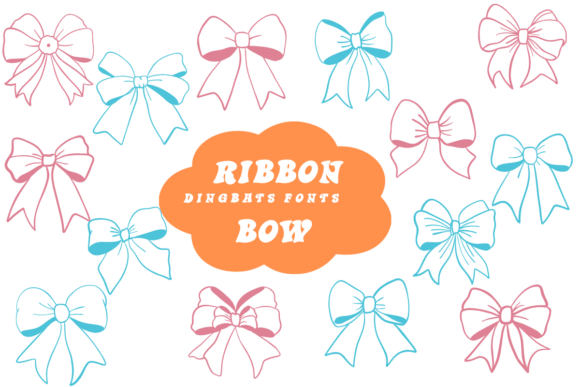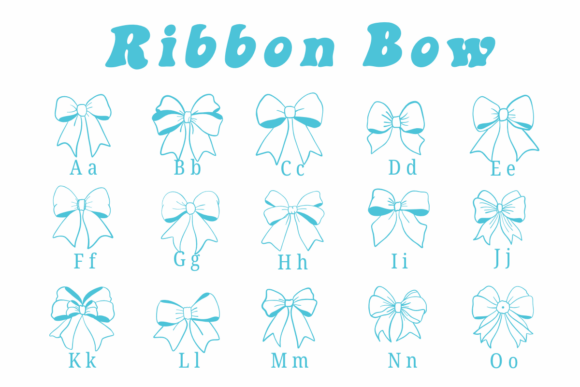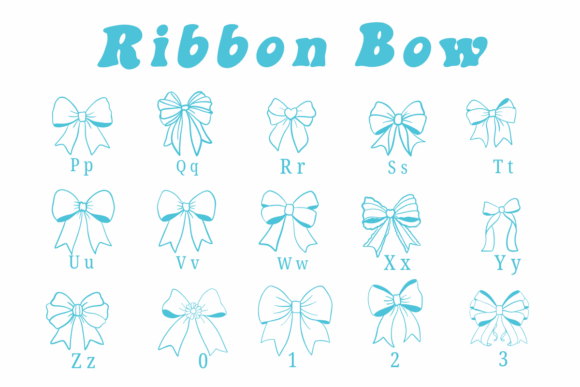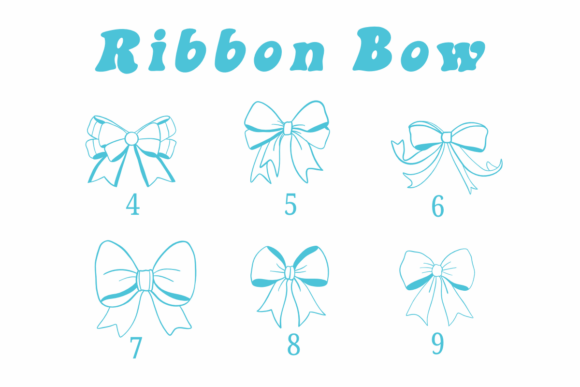
Ribbon Bow Font: A Playful Decorative Font for Holiday Crafts
About the Ribbon Bow Font
Welcome to the world of Ribbon Bow Font, a typeface that will inspire your next great project. Ribbon Bow is a delightful dingbat font featuring a collection of elegant and playful bow illustrations. From classic ties to whimsical loops, this font adds a charming touch to any design. Perfect for gift tags, greeting cards, fashion projects, kids’ prints, or crafting, these hand-drawn bows are versatile and full of flair.
Ribbon Bow’s playful yet elegant nature makes it ideal for projects requiring a touch of whimsy and sophistication. It excels in branding for children’s products, fashion accessories, or celebratory events. Use it effectively in logos, short headlines, packaging design, and social media graphics. Avoid using it for large bodies of text or UI elements; its decorative nature isn’t suited for readability in extended passages.
Pair Ribbon Bow with a clean sans-serif like Lato for a modern contrast, or a classic serif such as Garamond for a more traditional feel. For a bolder look, consider pairing it with a geometric sans-serif font. These pairings allow the Ribbon Bow’s decorative elements to stand out while maintaining design legibility.
The overall personality is best described as charming and sophisticated, balancing playful energy with refined elegance. This makes it suitable for brands aiming for a delicate yet memorable visual identity.